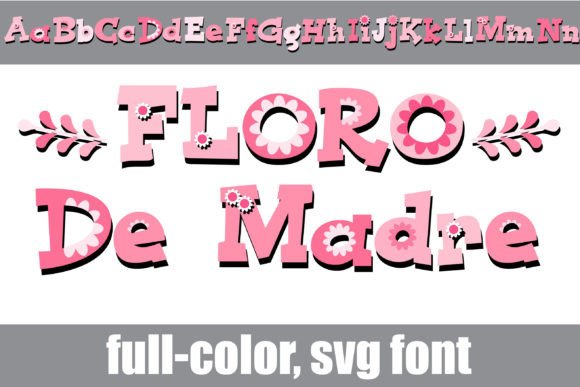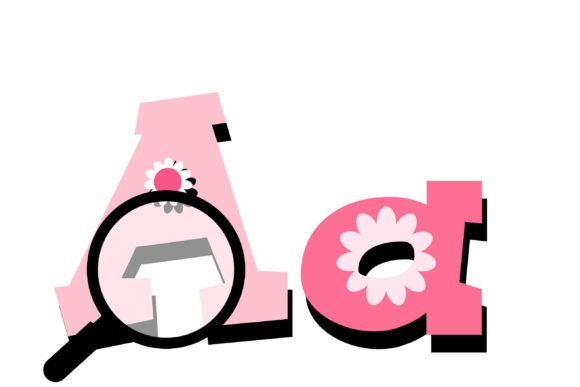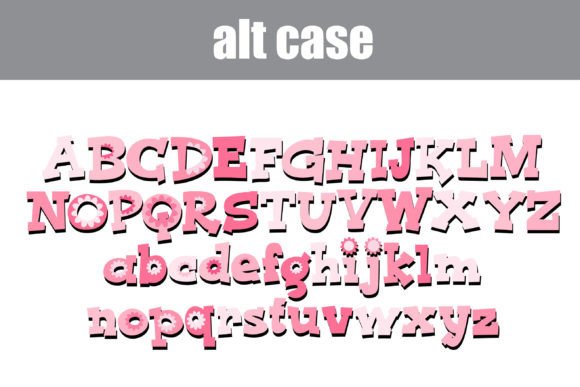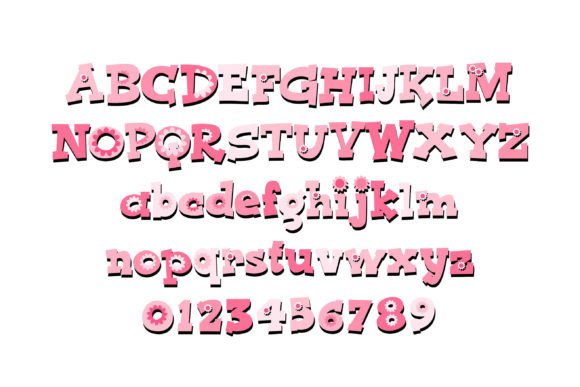
Floro De Madre Font
About the Floro De Madre Font
Make a bold statement with Floro De Madre Font, a powerful and memorable font. This full-color font features fun florals on a serif font. There is an alt case w/ additional colors you can access through your system or Silhouette’s glyph map.